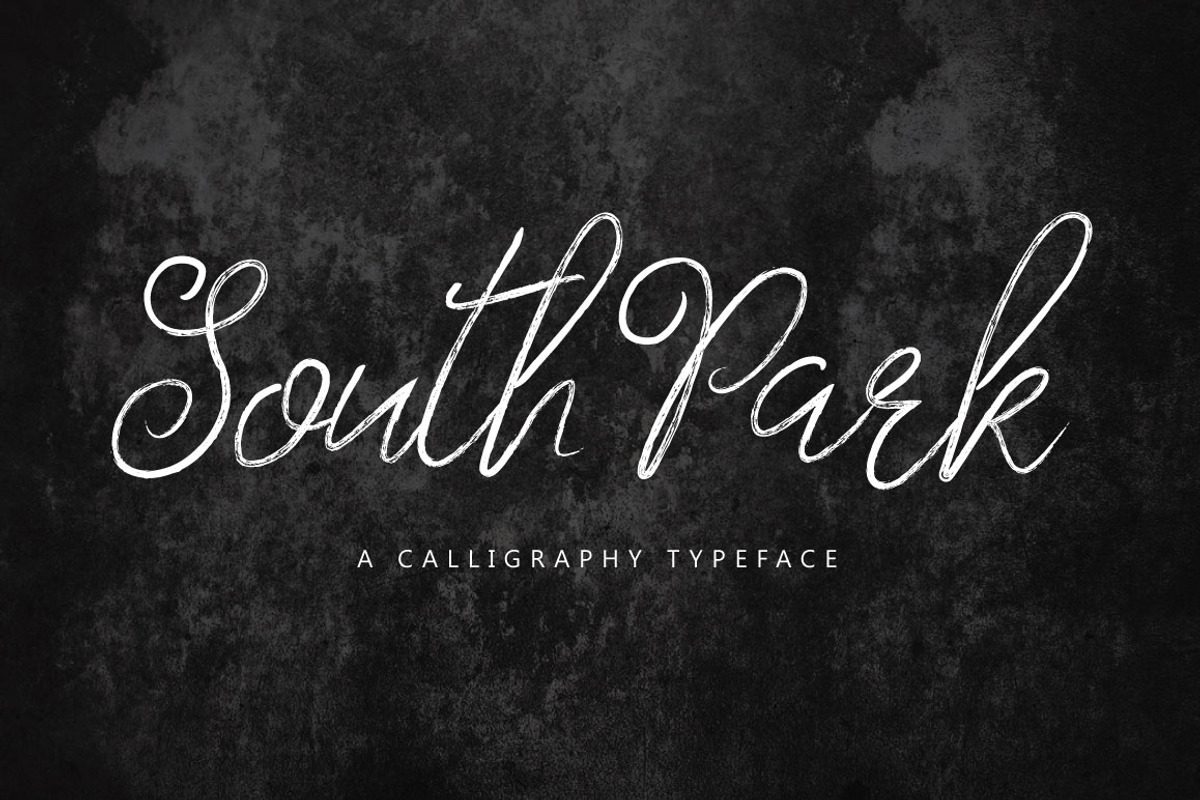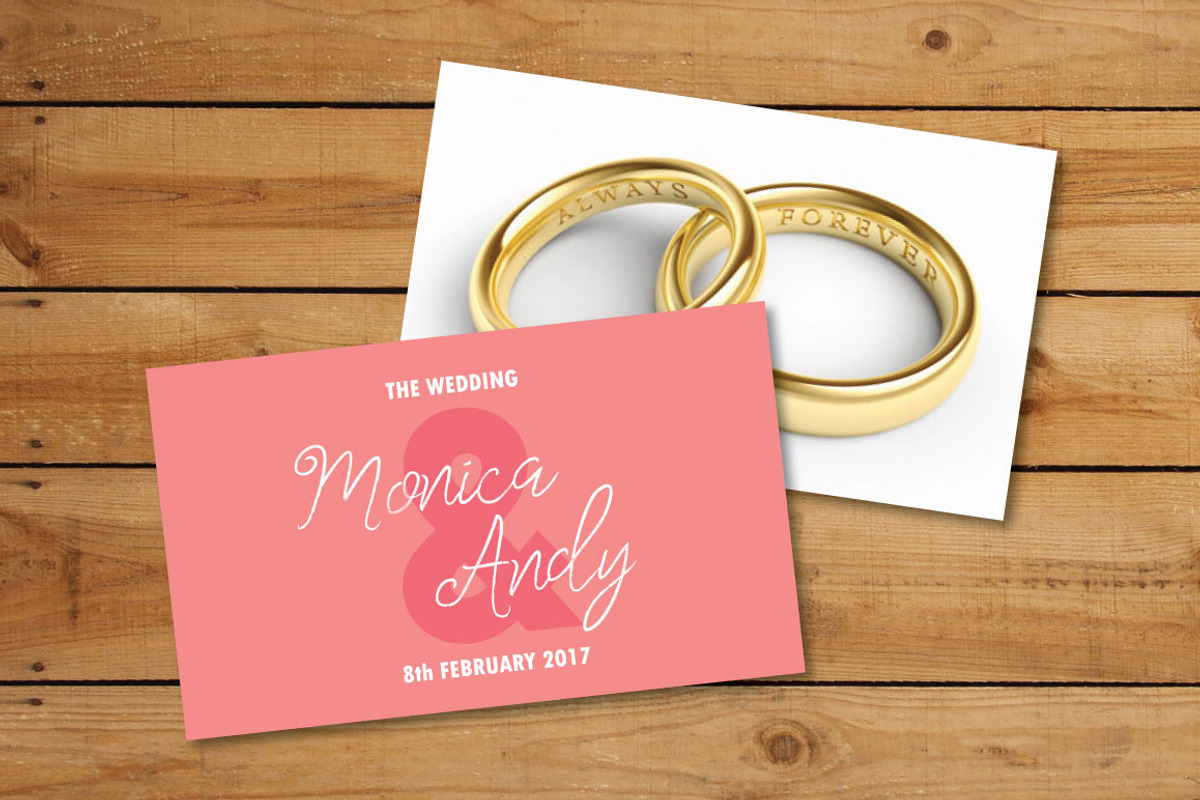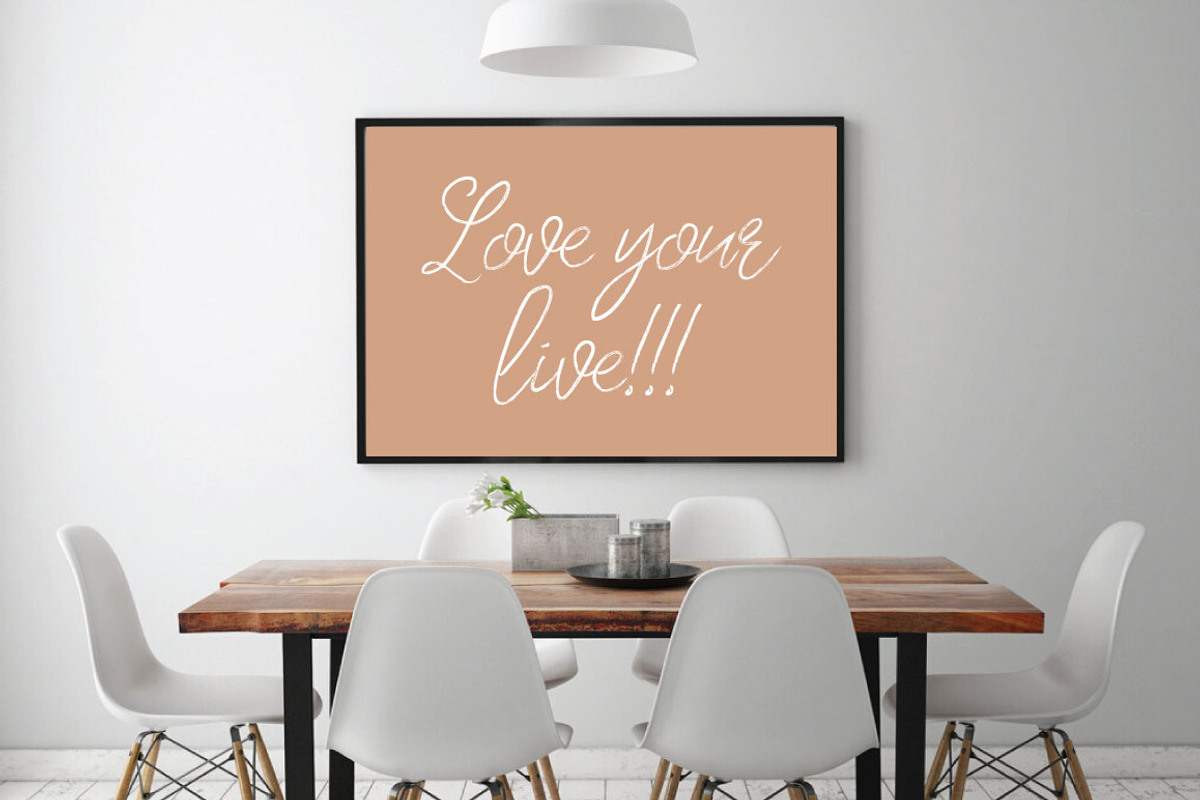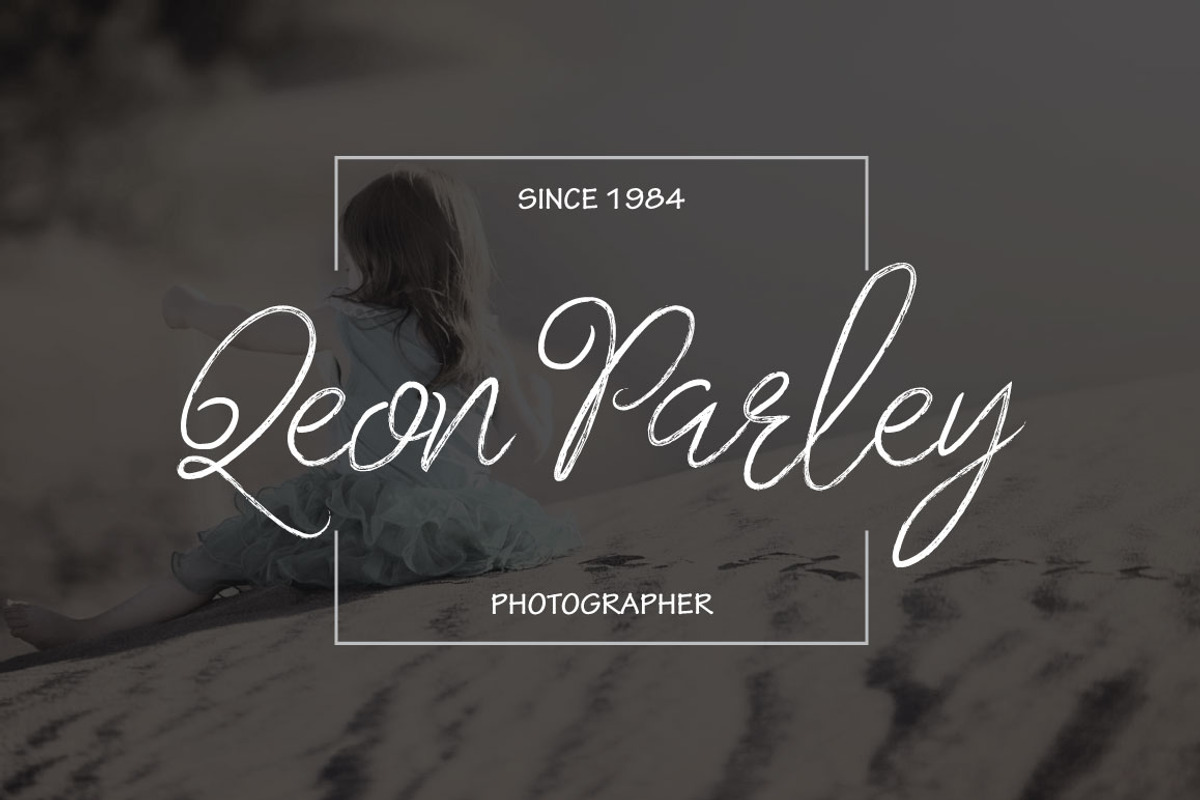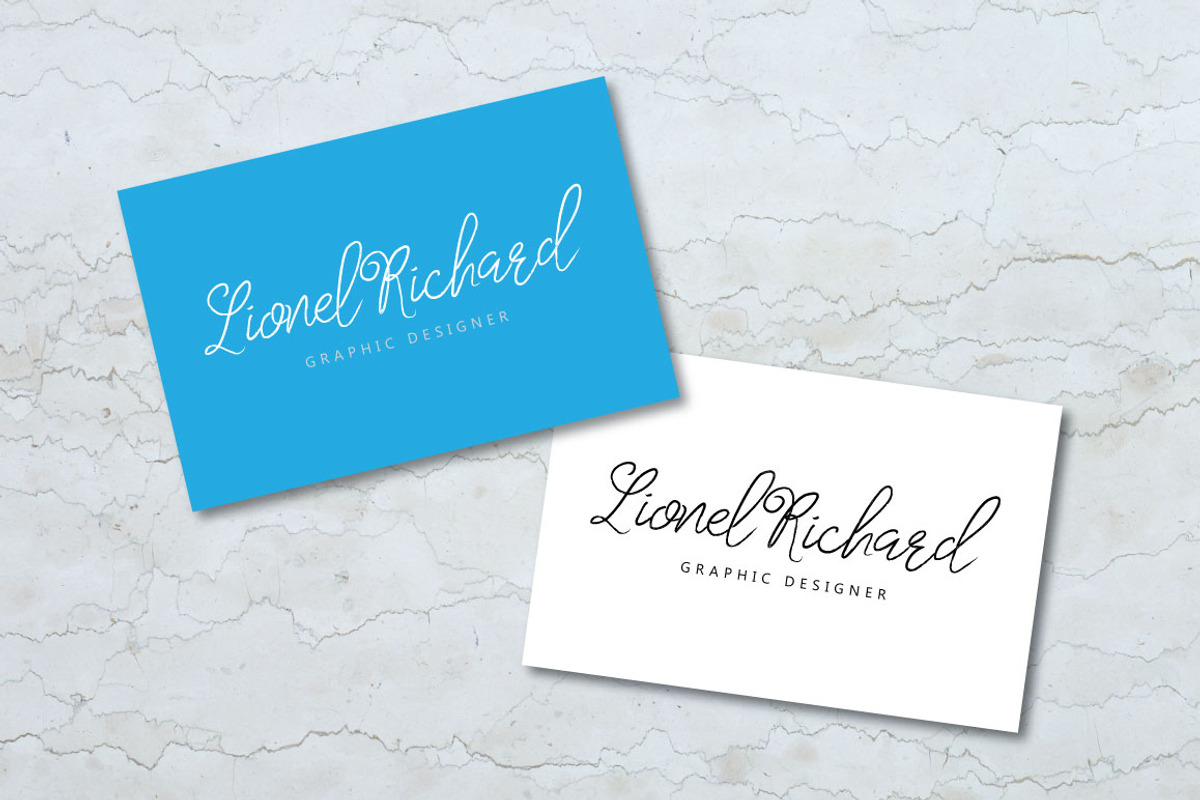
South Park Typeface
South Park is calligraphy brushed font with a bouncing base line and fast hand written look & just the right amount of texture. Balancing between elegant and rush style to help you create the look of stunning custom hand-lettering. South Park is just what you've been looking for!
Use South Park on all of your projects to give it an affectionately hand brushed feel. In particular would look great on, branding projects, logos, product packaging, posters, invitations, greeting cards, titles, blogs, everything that includes personal charm and you name it. ;)
South Park brush script comes with upper and lowercase characters, punctuation glyphs, numerals, and a TTF of web font. Feel free to use it for commercial/ extended license purposes.